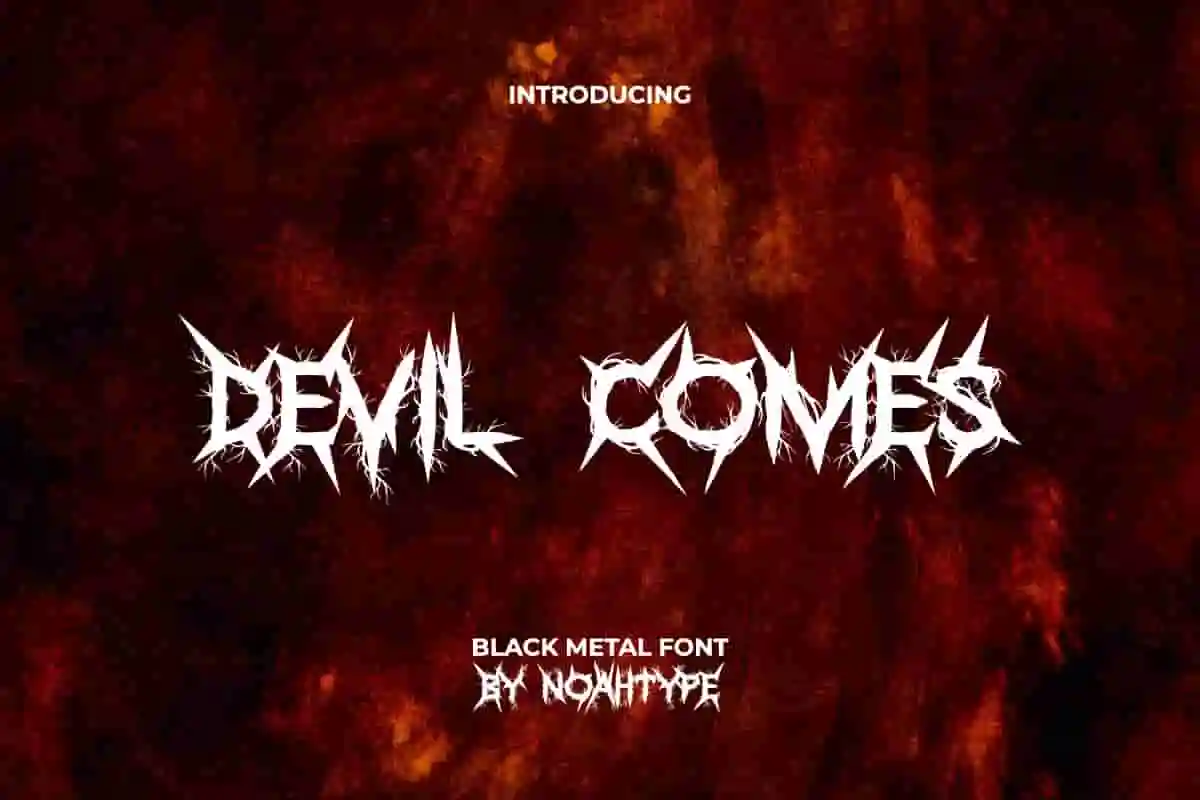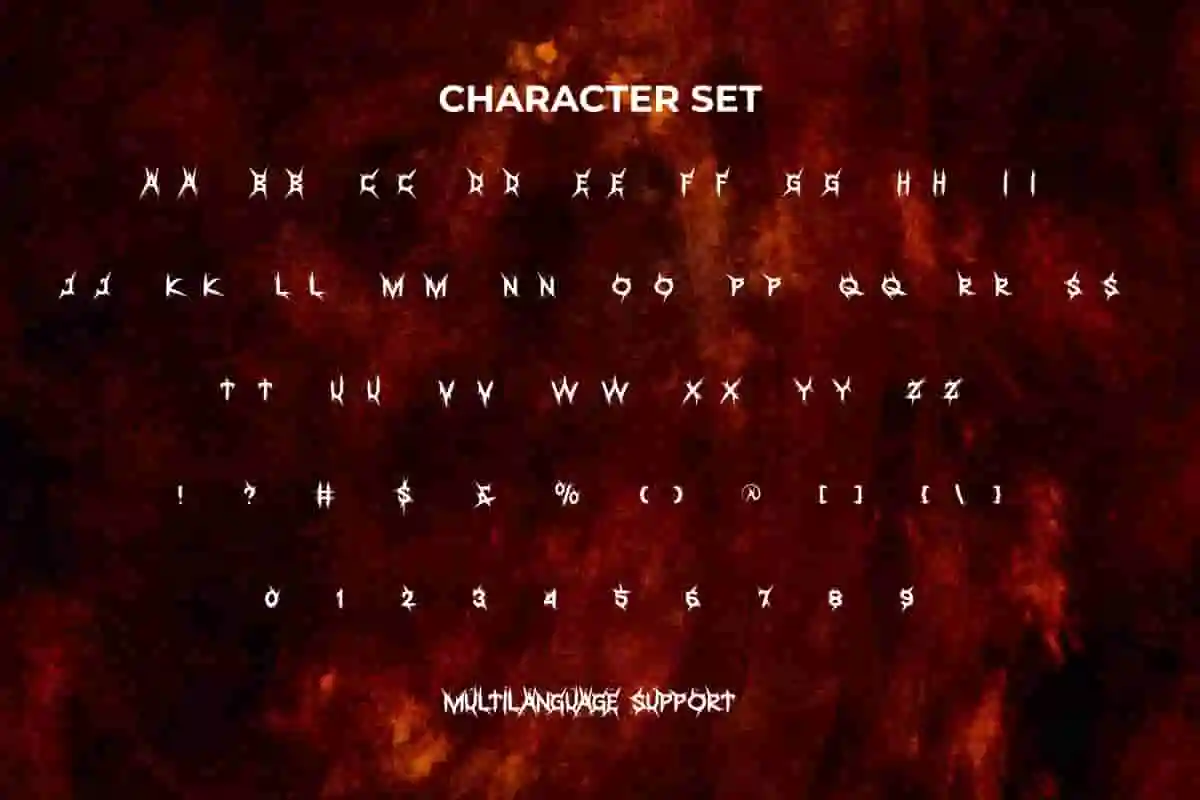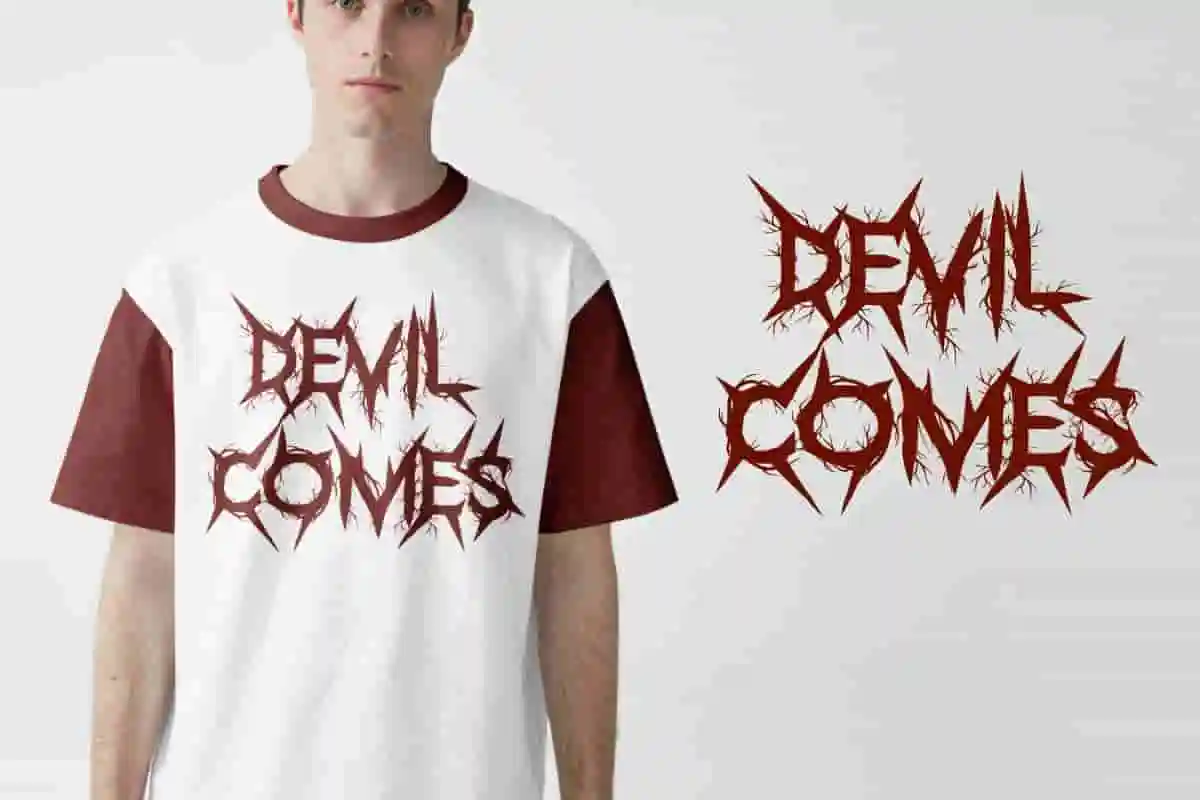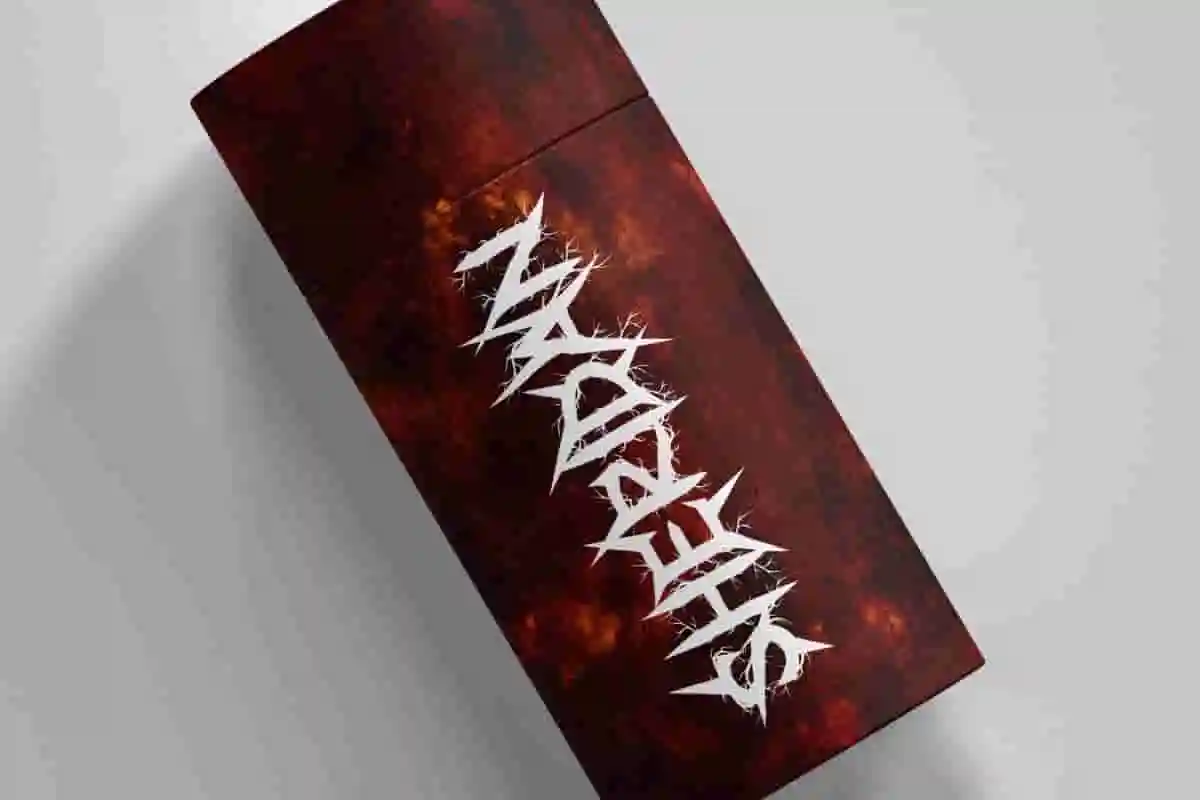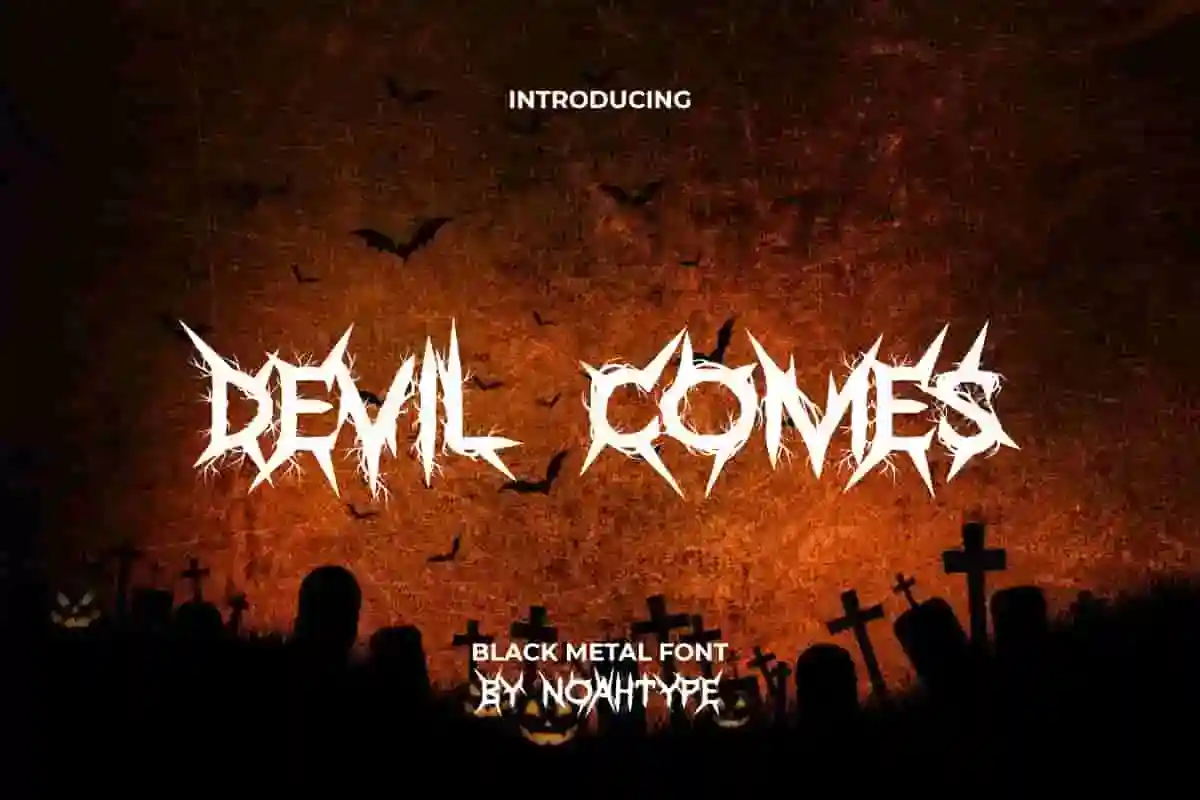
Devil Comes Font is a horror black metal font created by NoahType. This font has thorns and roots around the letters so it looks impressive and scary at the same time. It will be perfect for any designs, such as brand image, custom design, invitation, label, marketing material, menu, poster, printing, product packaging, quotes, signage, website, and many more!
Devil Comes Font includes full set of ALL CAPS for Uppercase and Lowercase Basic Characters, Numerals, Punctuation, and Symbol. This font will make your design outstanding and also a perfect choice for many industries, such as accessories, advertising, art, café, event or festival, fashion, game, movie, printing, publishing, etc.